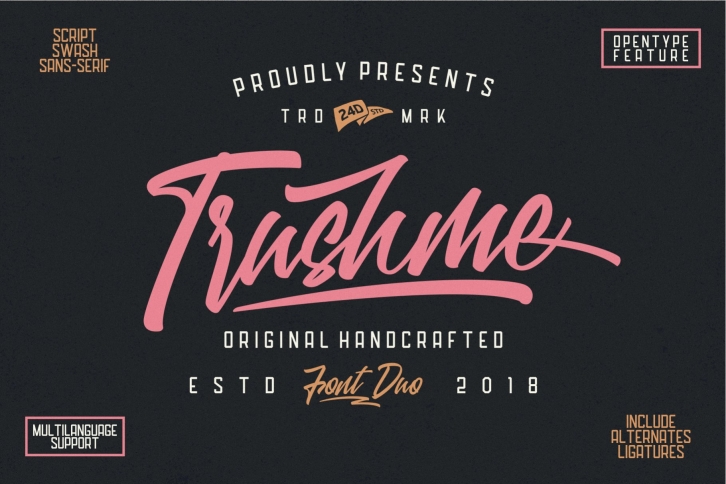
Trushme is duo font script and sans-serif font, this font always gives an extraordinary touch for you.
Trushme font is to use for any kind of design such as branding projects, logos, social media posts, advertisements, product packaging, product designs, labels, poster, photography, t-shirt, watermarks, stationery, and any projects.